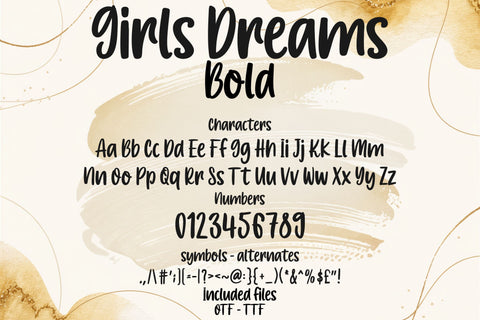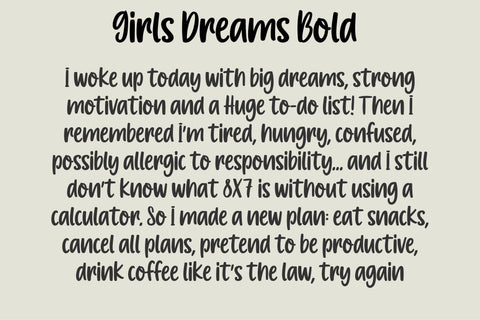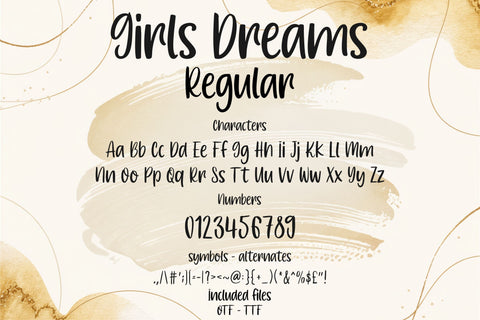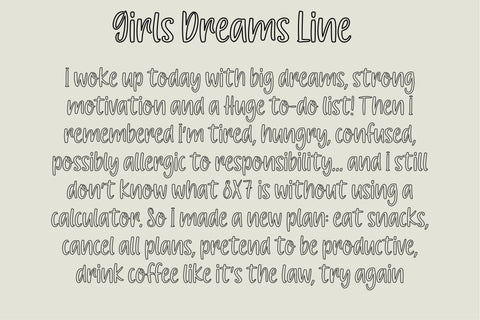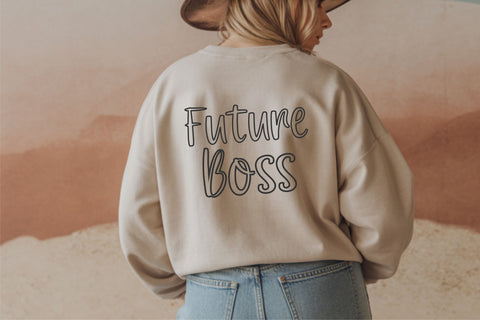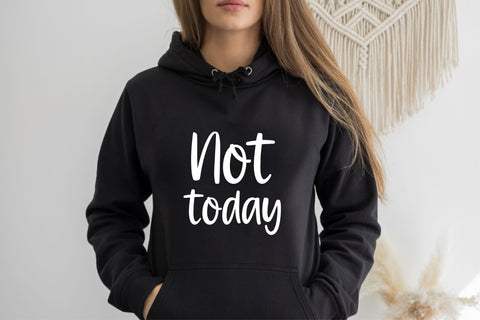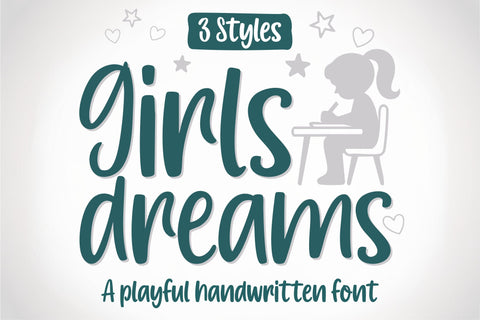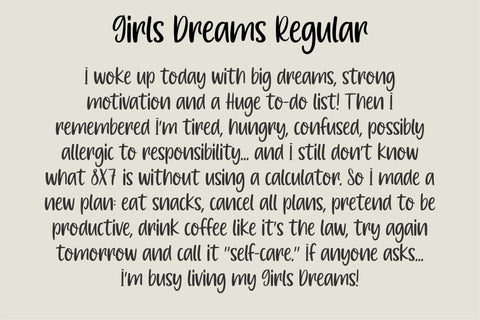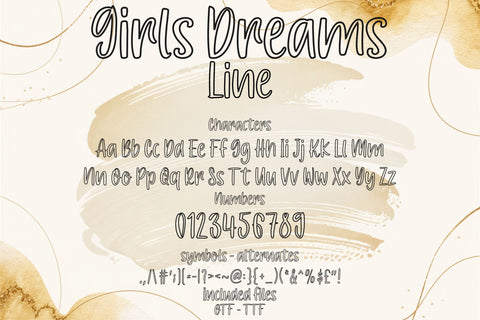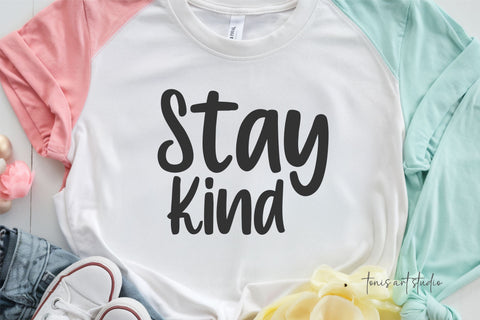
Girls Dreams Font Family, Cute Handwritten Font Bundle
Introducing Girls Dreams – a playful handwritten font family with three charming styles: Regular, Bold and Line. Designed to bring joy, creativity and a natural handwritten feeling to your projects, this font is perfect for planners, stickers, classroom materials, Goodnotes pages, student worksheets, social media posts and quotes. Each style has its own personality: the Regular version gives a relaxed handwritten flow, the Bold version stands out beautifully in titles and quotes, and the Line version is ideal for outlines, coloring pages, layering and notebook designs.
Girls Dreams captures youthful expression through bouncy lines and smooth curves that add warmth and character to everyday creations. Whether you’re designing planner pages, motivational stickers, teacher resources, greeting cards, notebook covers, branding elements or bullet journal spreads, this font family gives you flexibility and playful charm in every stroke. It installs easily and works with all major design software such as Canva, Procreate, Cricut Design Space, Illustrator, Photoshop, Silhouette Studio, CorelDRAW and Goodnotes.
Use the three styles together to create standout typographic compositions or combine them with doodles, pastel aesthetics or sketch-style illustrations. The smooth outline ensures perfect cutting and printing results for vinyl, sublimation and sticker sheets. Girls Dreams is ideal for digital and printable projects that need a fun, dreamy and handwritten touch. Let your creativity flow and bring your ideas to life with this delightful font family!
• Smooth cut-friendly outlines